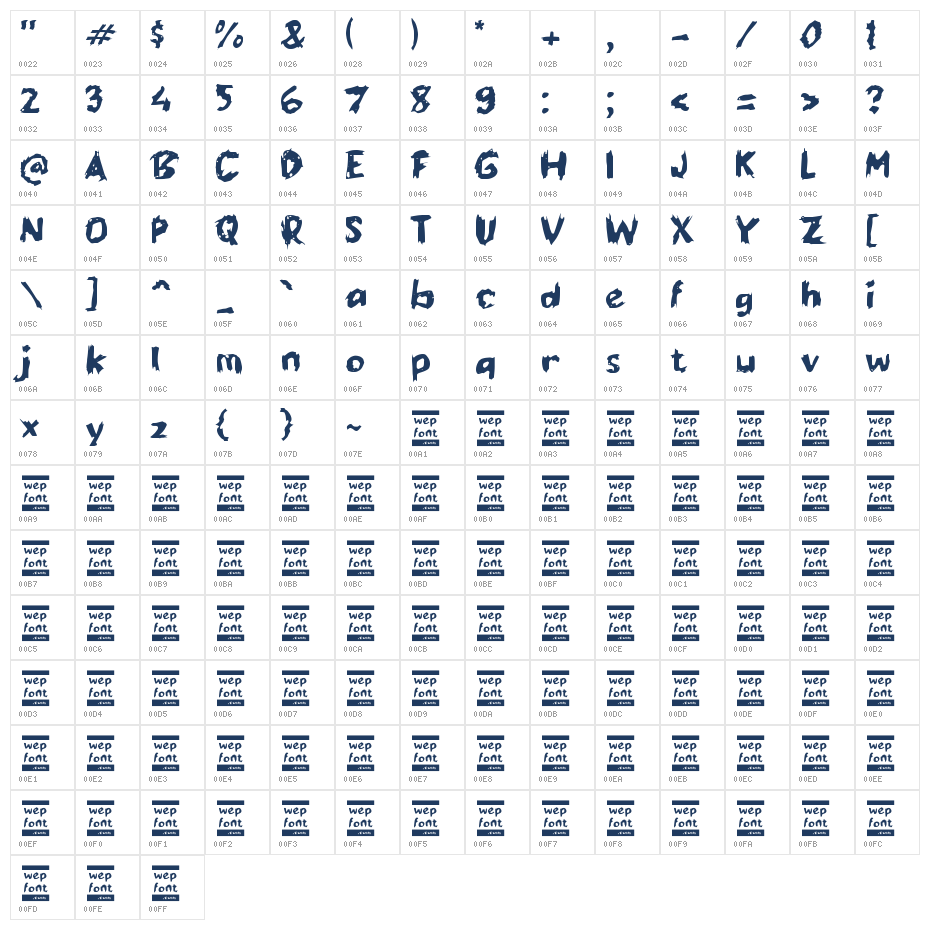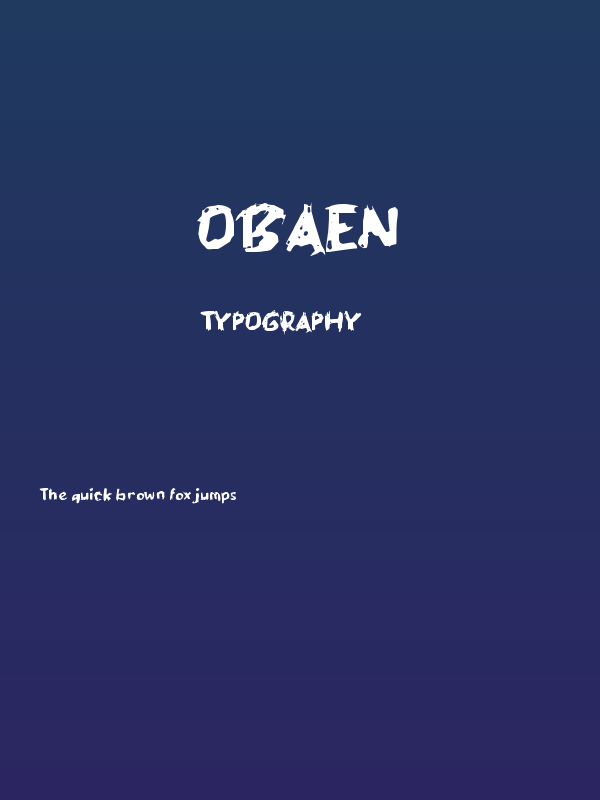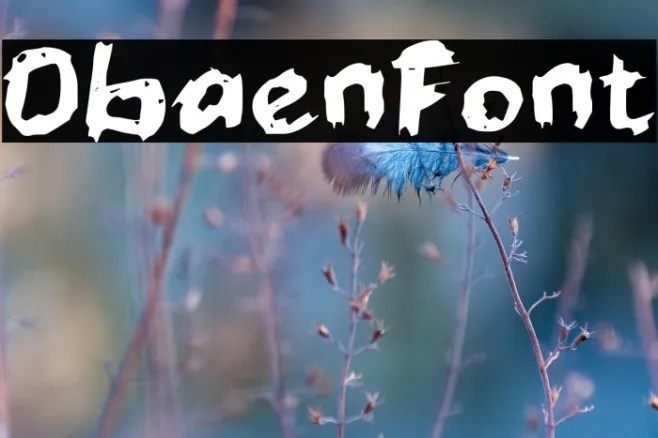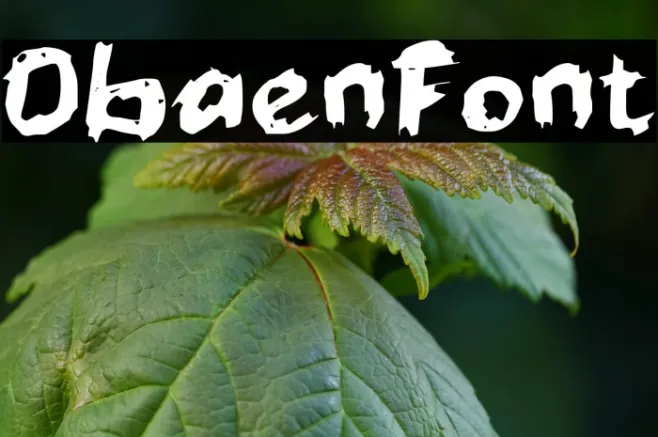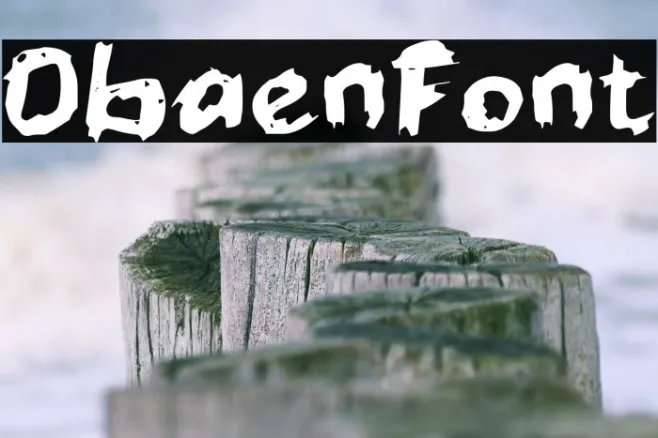
Obaen Font
Obaen Description
A bold, distressed, brush-stroke style font with a rough, textured appearance, featuring irregular edges and a playful, energetic vibe.
OBAEN UPPERCASE
OBAEN LOWERCASE
OBAEN OTHER CHARS
| Overall Style | Playful, Energetic, Artistic |
| Use Case | Headlines, Posters, Logos, Creative Titles |